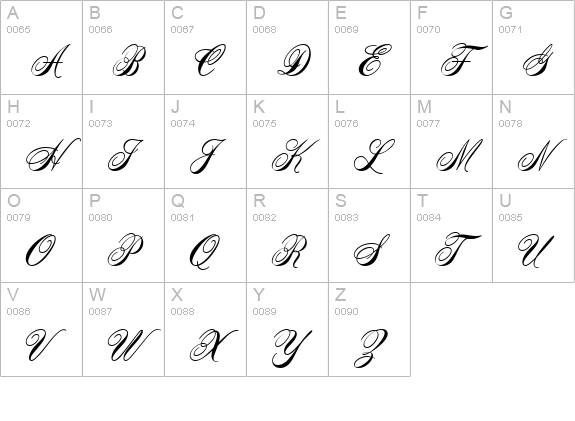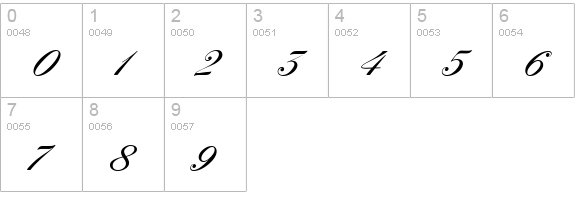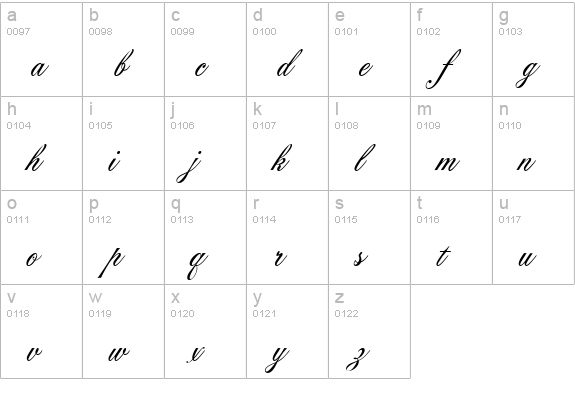
AcroterionJF font is a stylish and elegant typeface that exudes sophistication and class. With its unique blend of modern and classic elements, this font is perfect for adding a touch of refinement to any design project. The graceful curves and sharp angles of AcroterionJF create a harmonious balance that is both eye-catching and easy to read. What sets AcroterionJF apart is not only its timeless appeal but also the fact that it is completely free to use. That's right, this exquisite font is freely available for download at FontsMarket.com, making it accessible to designers and creatives everywhere. Whether you're working on a branding project, a website design, or a personal invitation, AcroterionJF is sure to elevate your work to the next level. Don't miss out on the opportunity to enhance your designs with the beauty and versatility of AcroterionJF font. Download it for free today at FontsMarket.com and experience the magic of this exceptional typeface for yourself.